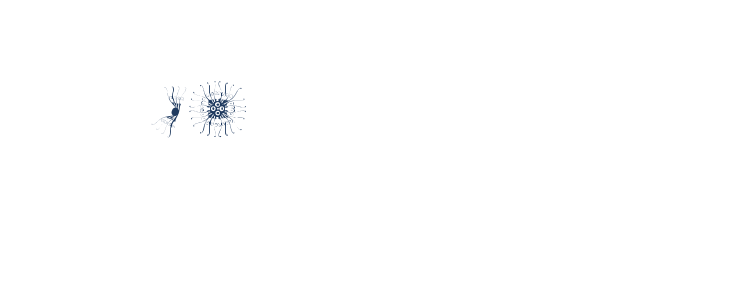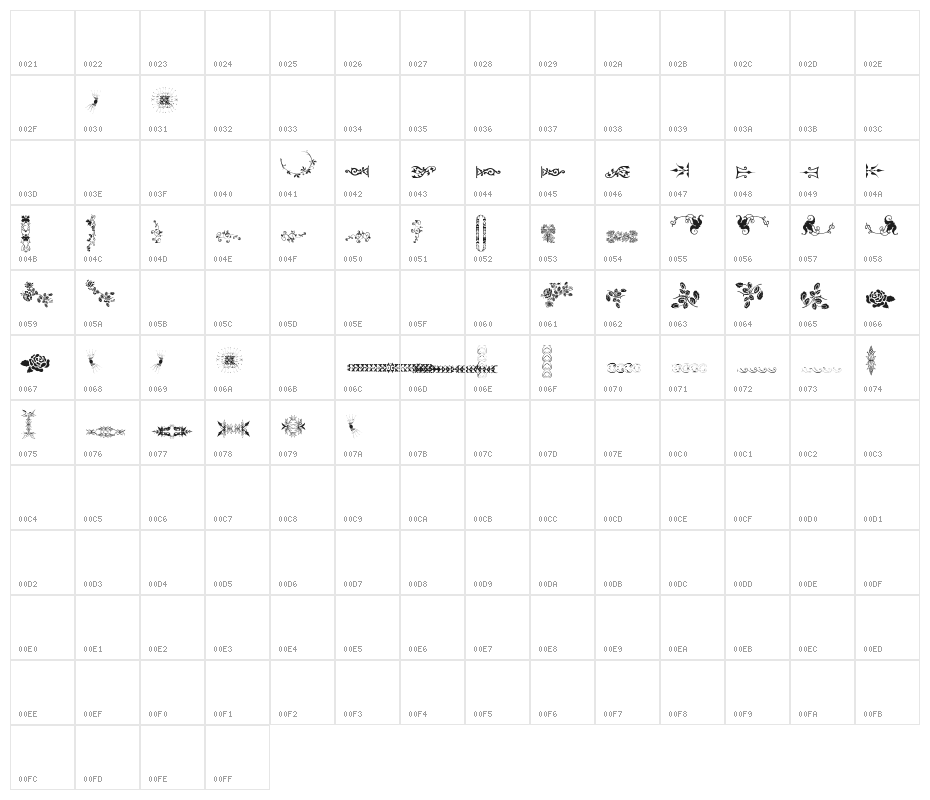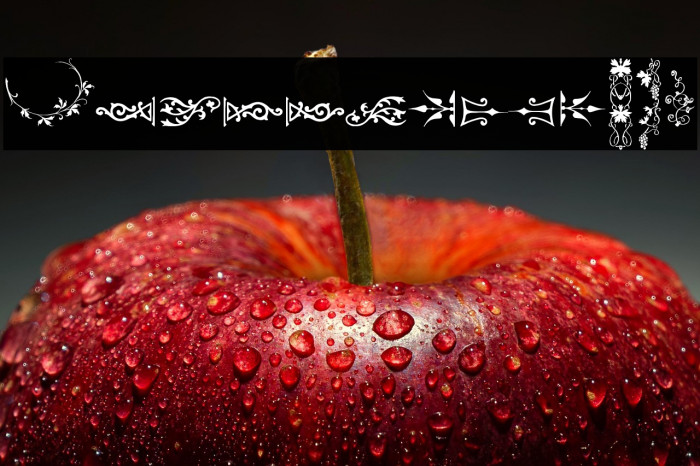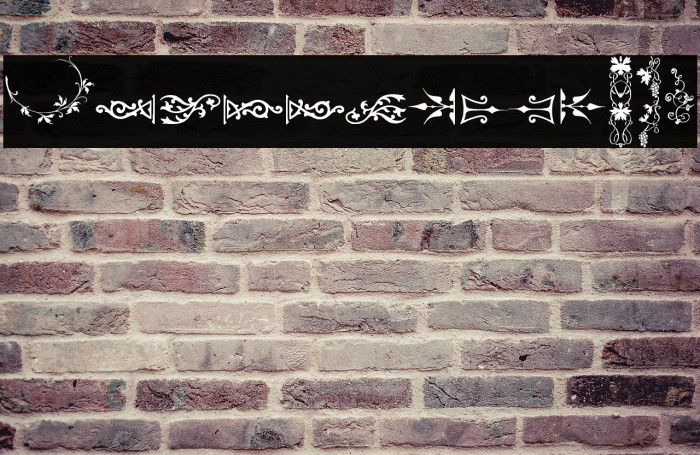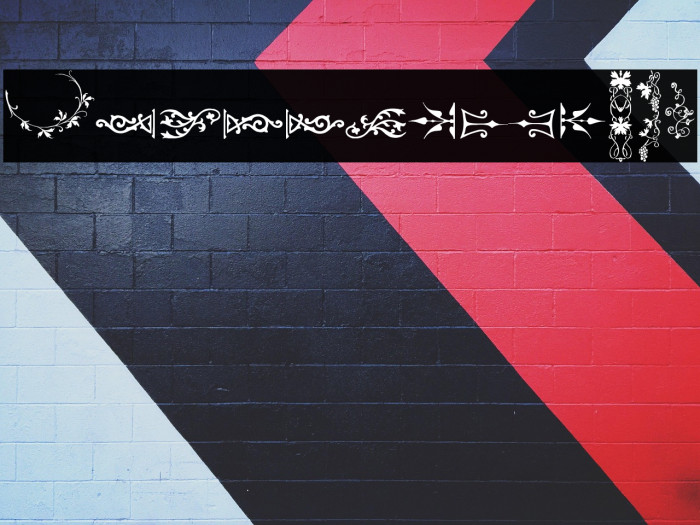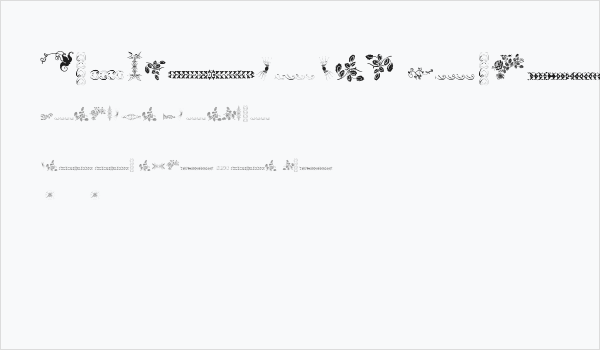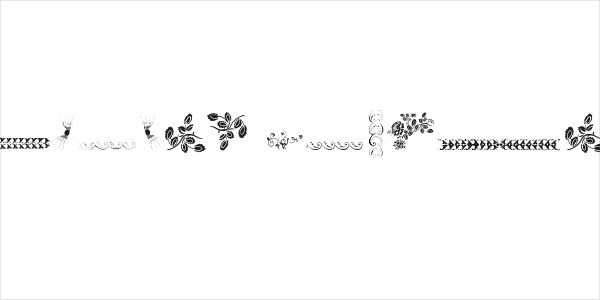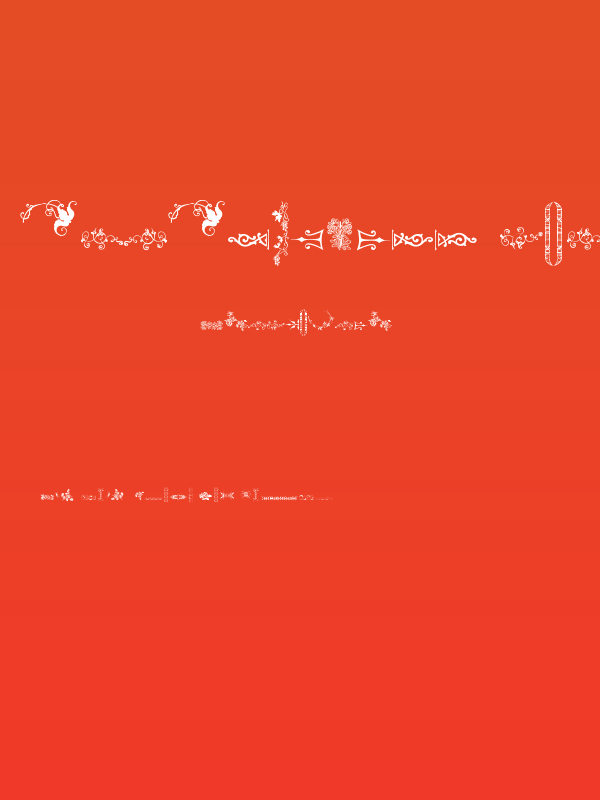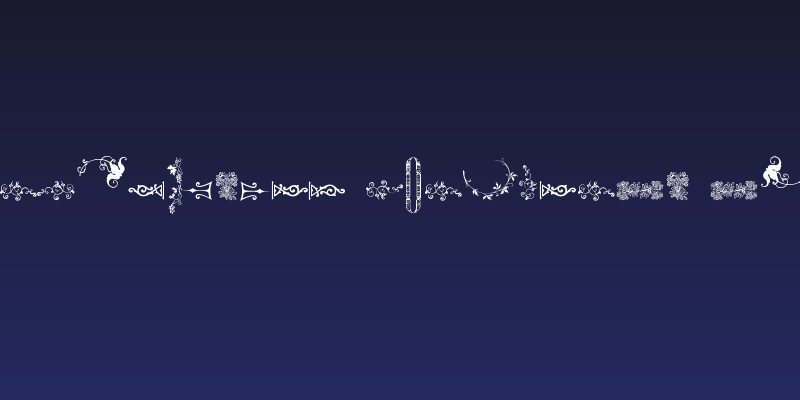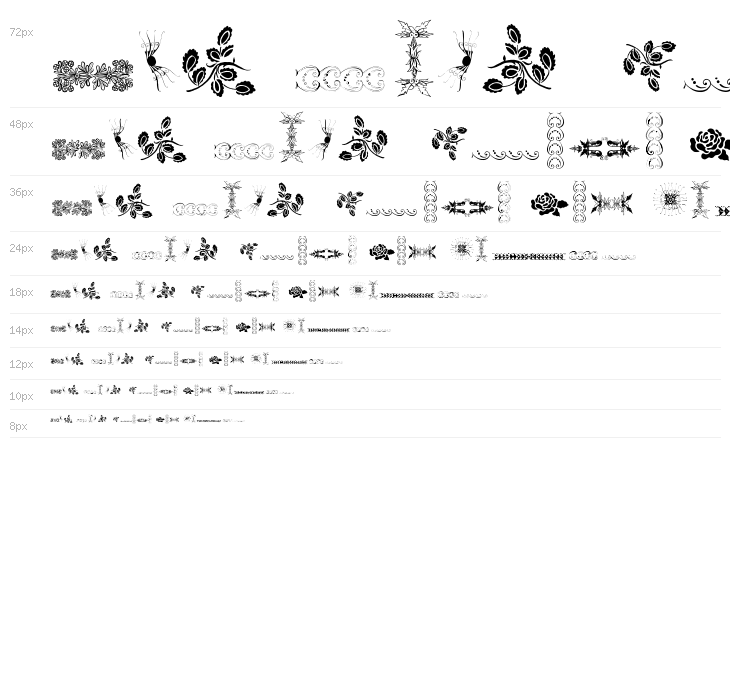
Unpublished Ornaments Two Font
Unpublished Ornaments Two Description
A collection of intricate ornamental and decorative glyphs featuring floral, botanical, and abstract motifs, with symmetrical and detailed line work. The designs vary from borders and dividers to standalone flourishes, suitable for embellishing documents or designs.
| Overall Style | Vintage, Decorative |
| Use Case | Borders, Dividers, Decorative accents |
| Proposed Projects | Wedding invitations, vintage certificates, decorative borders, book covers, greeting cards, ornamental dividers. |